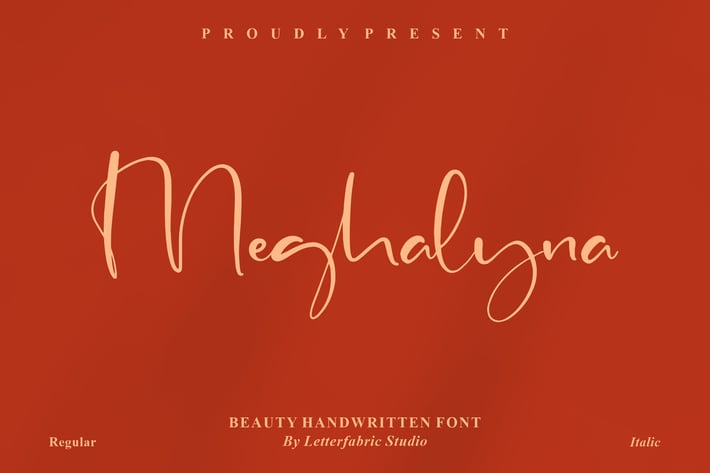
Meghalyna Handwritten Font
Meghalyna is a graceful handwritten font designed with elegance and charm. Its thin, flowing strokes create a stylish yet natural look, perfect for adding sophistication to any creative project. This font seamlessly blends simplicity and refinement, making it a versatile choice for both digital and print designs.
+ Elegant handwritten style
+ Regular & italic variations
+ Smooth curves with natural flow
+ Multilingual support
+ Branding & logo design
+ Wedding invitations
+ Social media graphics
+ Editorial and magazine layouts
+ Greeting cards & quotes
+ Product packaging
+ Fashion or lifestyle projects
Bring elegance to life with Meghalyna — the perfect handwritten font for timeless designs.